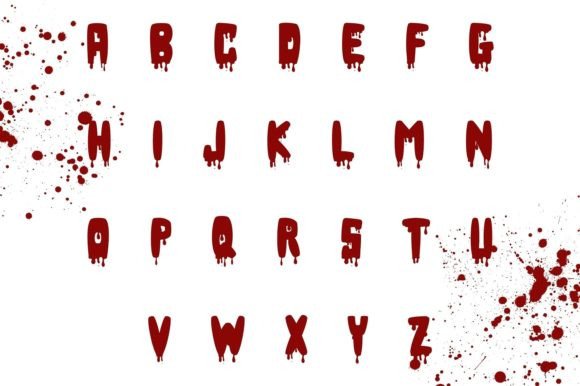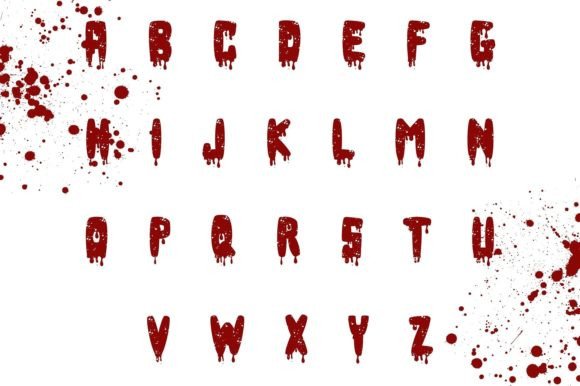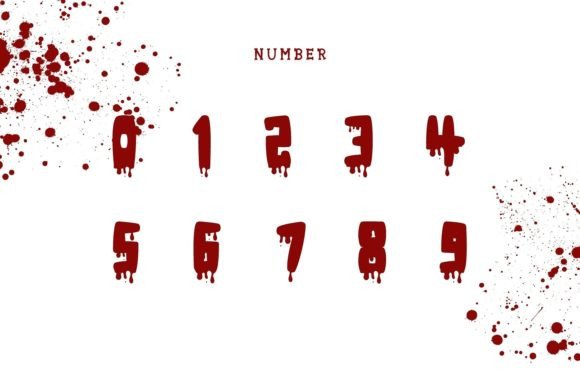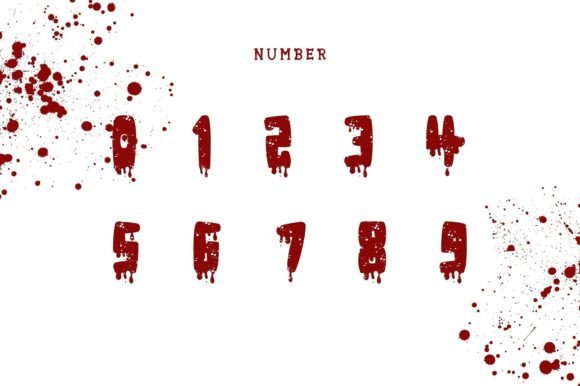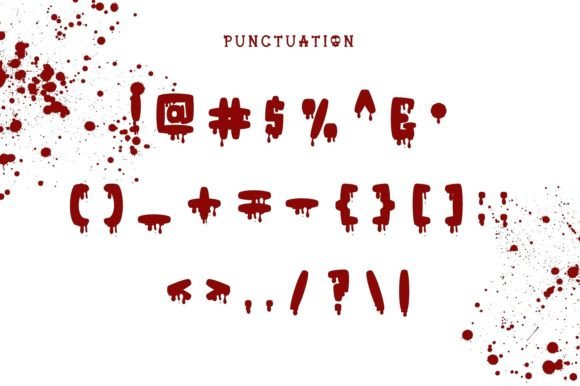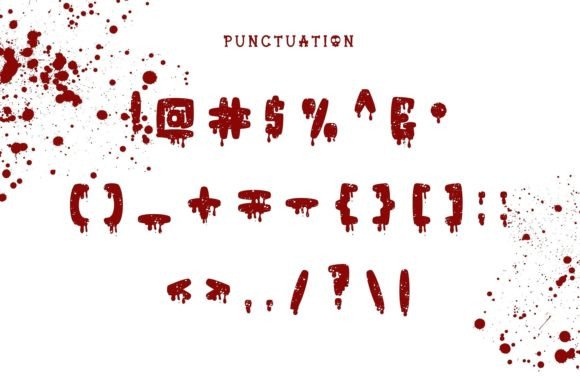
The Perfect Splash of Horror and Whimsy: Introducing Blood Font
Do you remember the thrill of creating a spooky Halloween display as a kid, using cardboard and paint to bring your favorite monsters to life? For many of us, that creative spark never fades, and we continue to seek out unique ways to add a touch of personality to our designs. Whether you’re a seasoned designer or a DIY enthusiast, the right font can make all the difference in elevating your projects from ordinary to extraordinary.
Enter Blood Font, a bold and playful typeface that’s perfect for adding a splash of horror and whimsy to your designs. With its authentic, hand-drawn feel, Blood Font is ideal for a wide range of applications, from spooky Halloween projects to everyday designs that need a little extra flair.
Blood Font Key Features
- Character Set: The font includes a comprehensive set of characters, including Latin, Cyrillic, and Greek alphabets, as well as punctuation marks and symbols.
- Unique Characteristics: Blood Font features a distinctive, gothic-inspired design with bold lines and a dark, blood-red color scheme, making it ideal for use in horror, fantasy, and gaming contexts.
Blood Font Review
Overall, I have mixed feelings about the Blood Font. While it’s definitely a unique and eye-catching choice, it’s not without its limitations.
- Unconventional design: Blood Font is certainly one of a kind, and it can be a great choice for projects that need a bold, attention-grabbing look.
- Expressive possibilities: The font’s irregularities and varying line widths offer a lot of creative potential for designers who want to add some personality to their work.
- Emotional impact: Blood Font can be quite effective at conveying a sense of intensity, passion, or even menace, making it suitable for certain types of projects.
- Readability issues: While Blood Font can be great for headlines or titles, it’s not ideal for body text due to its irregularities and limited legibility.
- Limited versatility: The font’s unique design makes it less suitable for projects that require a more traditional or neutral look.
- Font pairing challenges: Blood Font can be difficult to pair with other fonts, as its bold, expressive nature can overwhelm more subdued typefaces.
Overall, Blood Font is a bold and expressive choice that can be a great fit for certain projects, but it’s essential to consider its limitations and potential readability issues before committing to it.
For a more dramatic effect, try combining the Blood Font with bold or italic text.
Experiment with different layer styles to create a unique and eye-catching design.
Use the Blood Font to add a touch of drama and flair to your presentations or documents.
Use the Blood Font to:
- Create attention-grabbing headlines and titles.
- Add a touch of drama to presentations and documents.
- Highlight important information or key statistics.
Experiment with different font sizes, colors, and styles to create a unique and effective design.